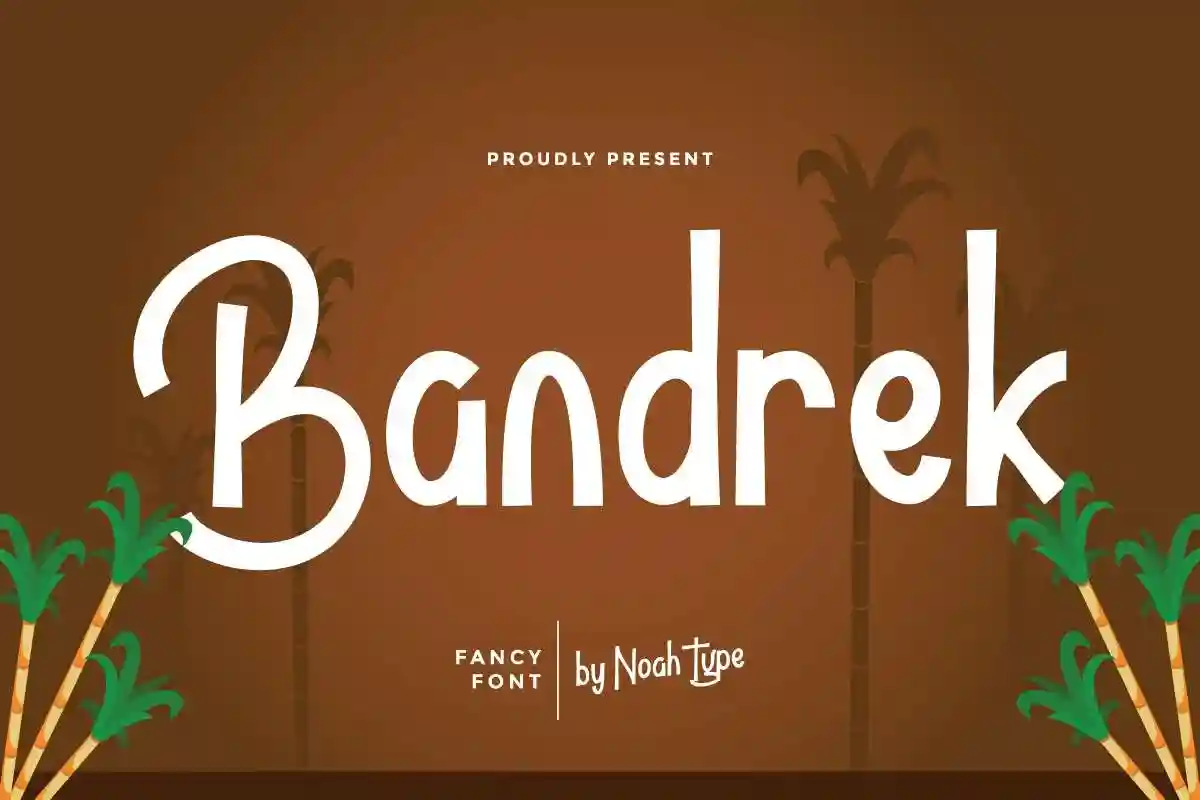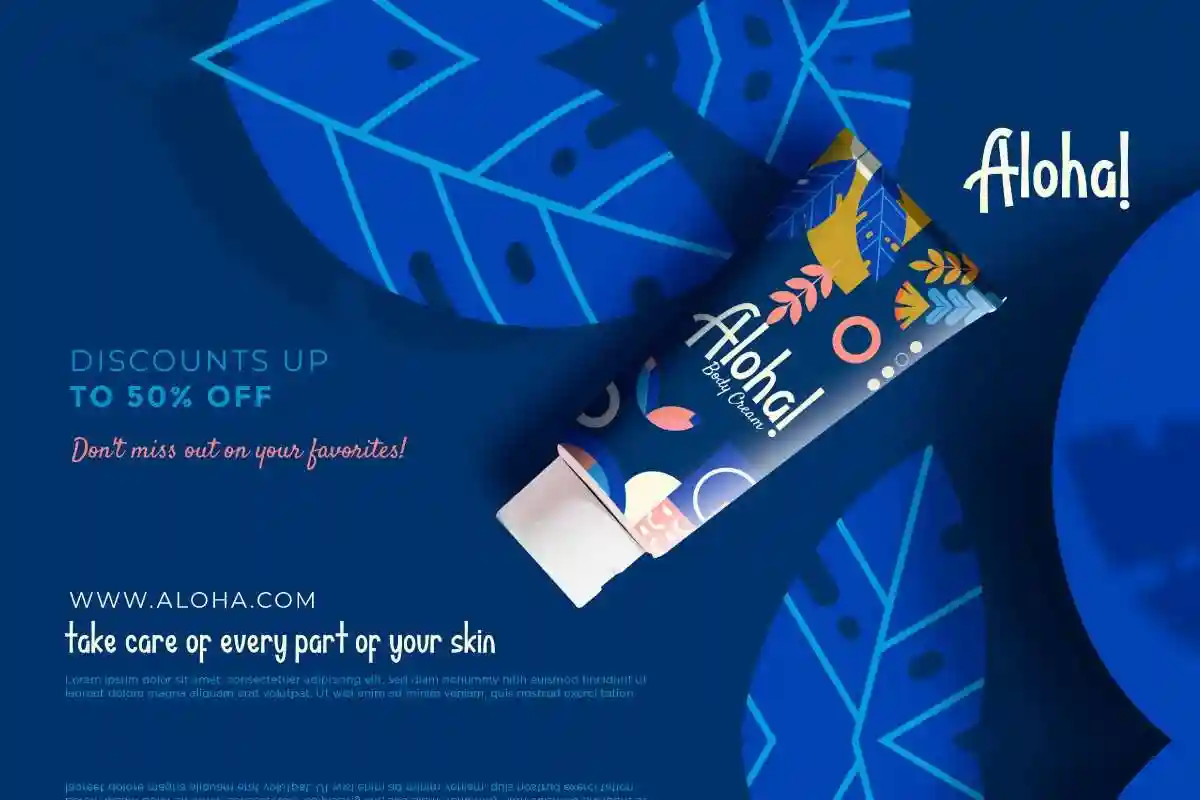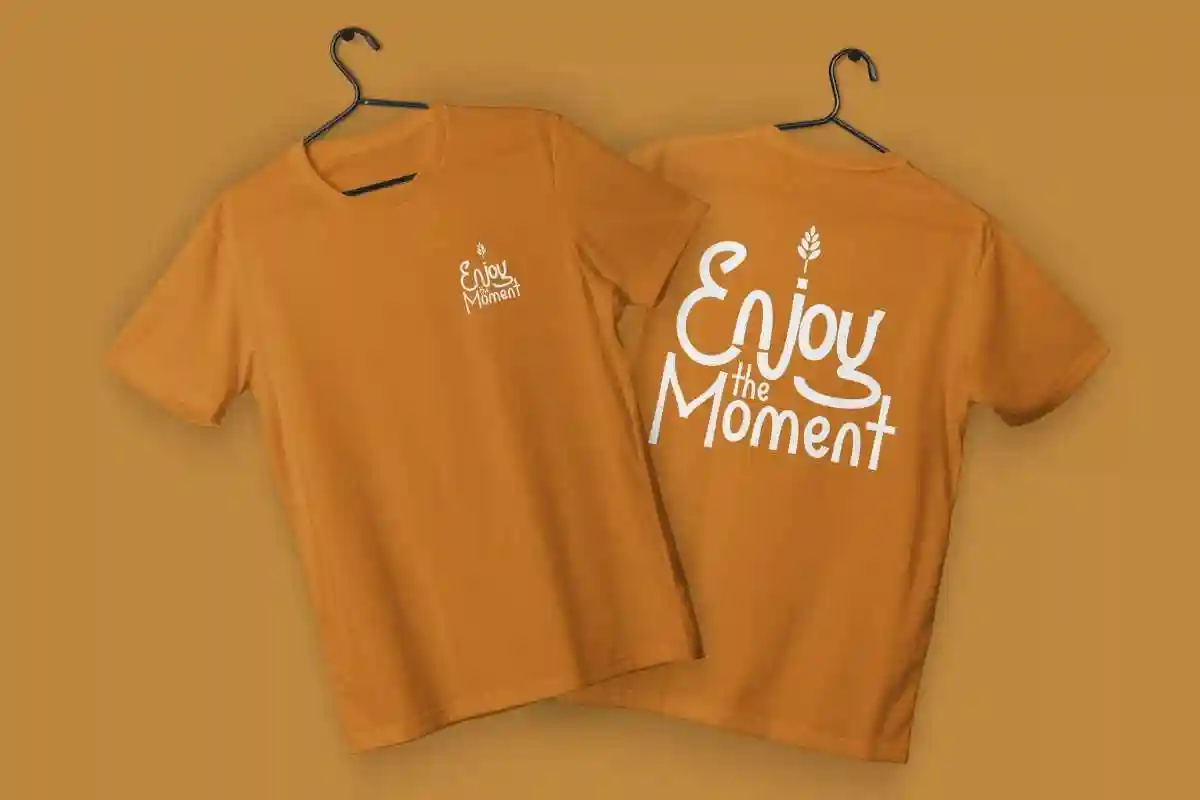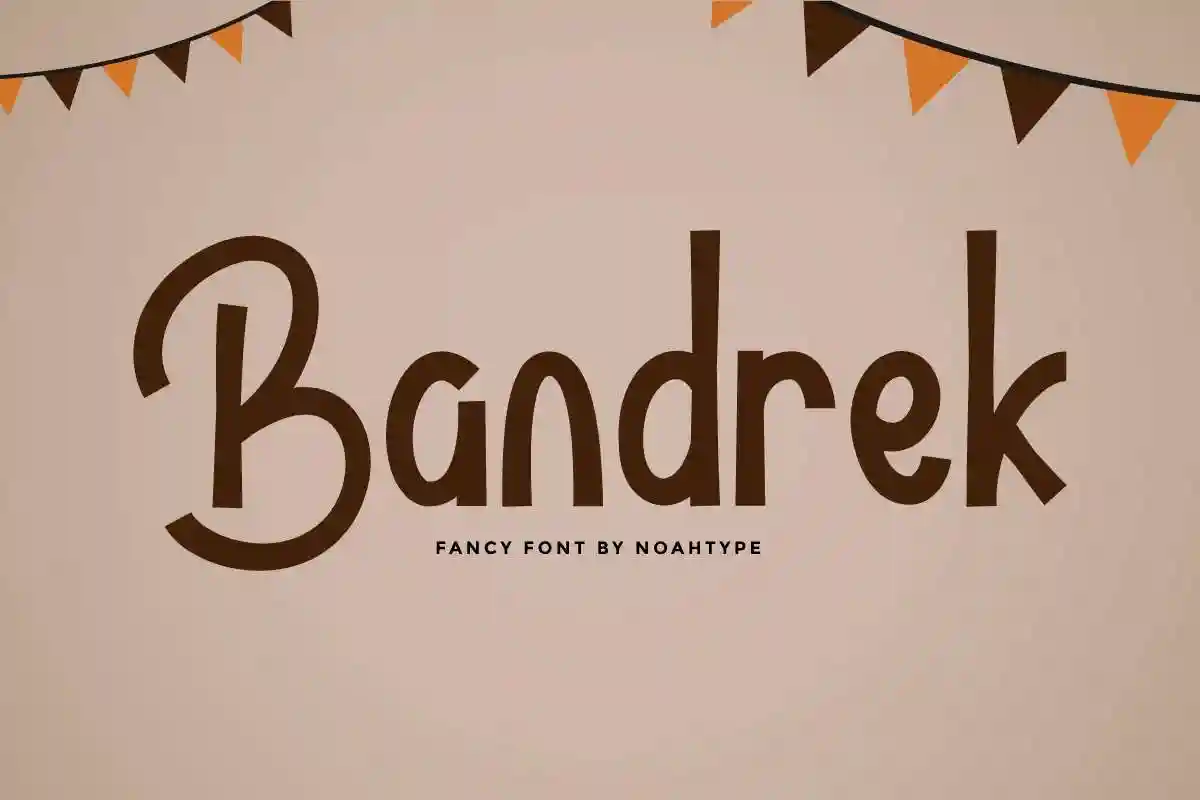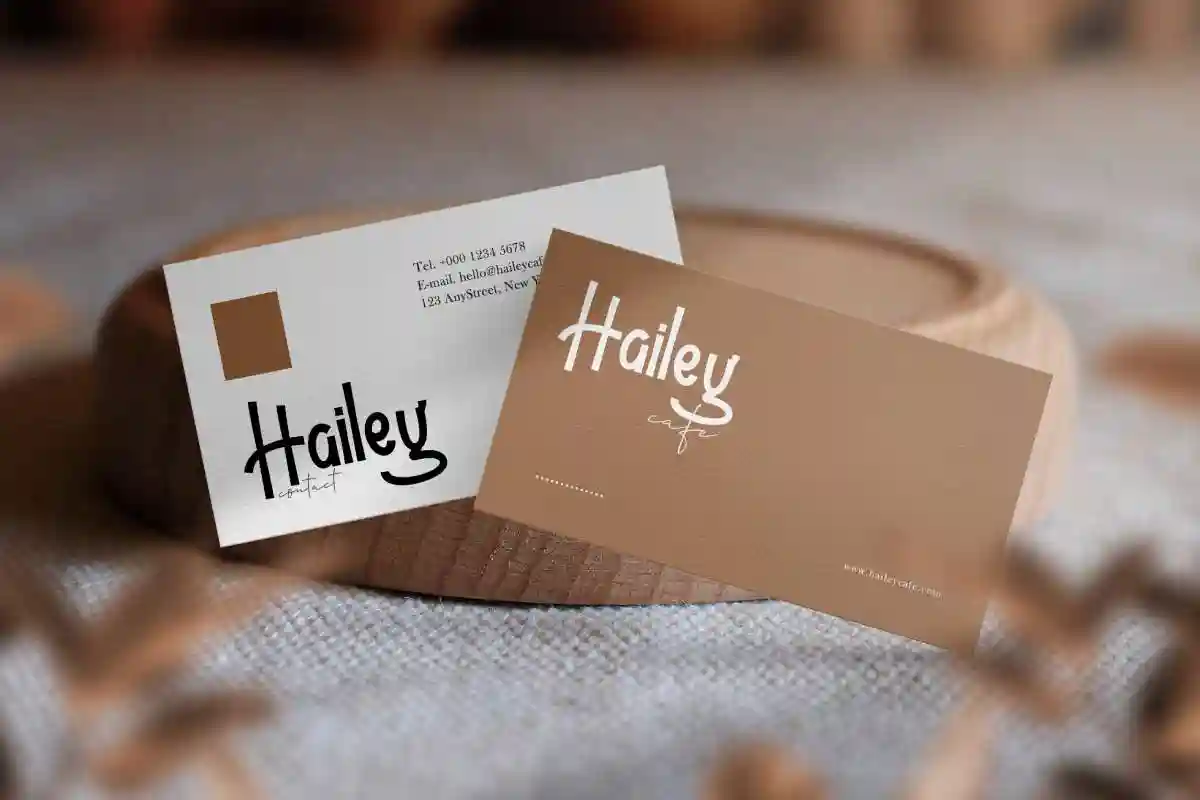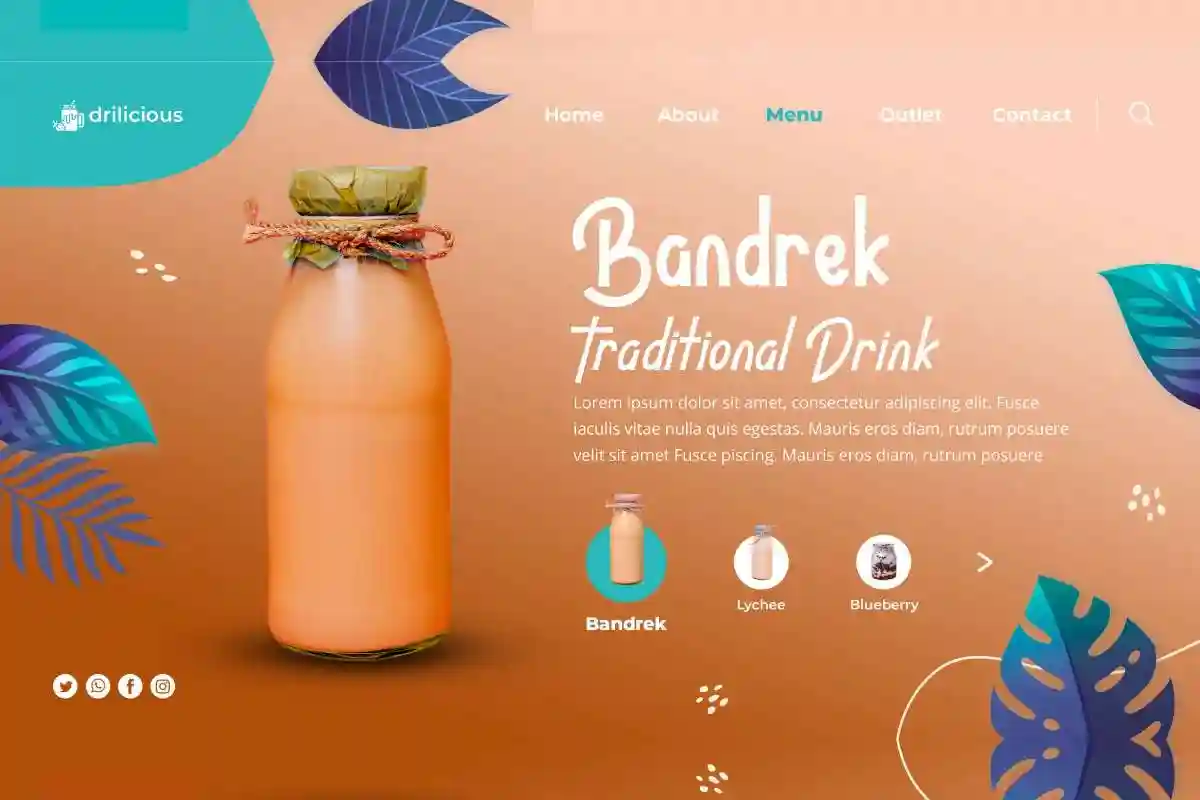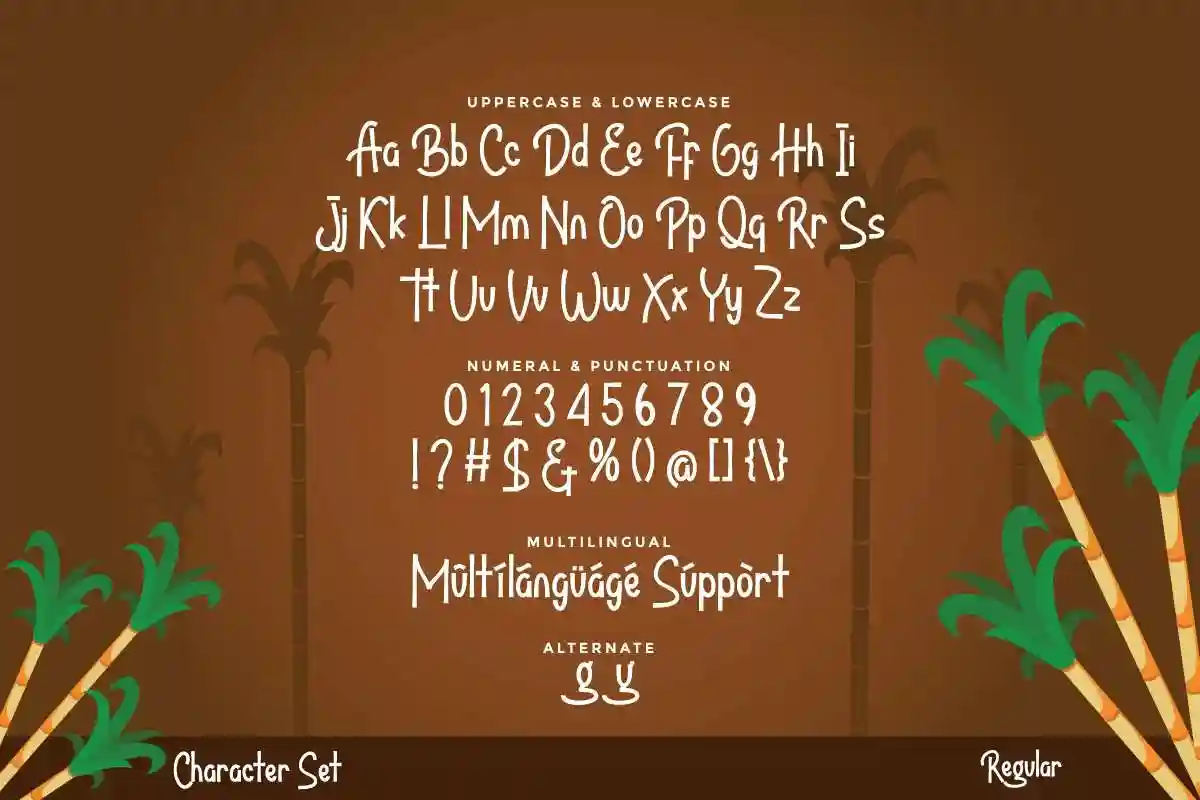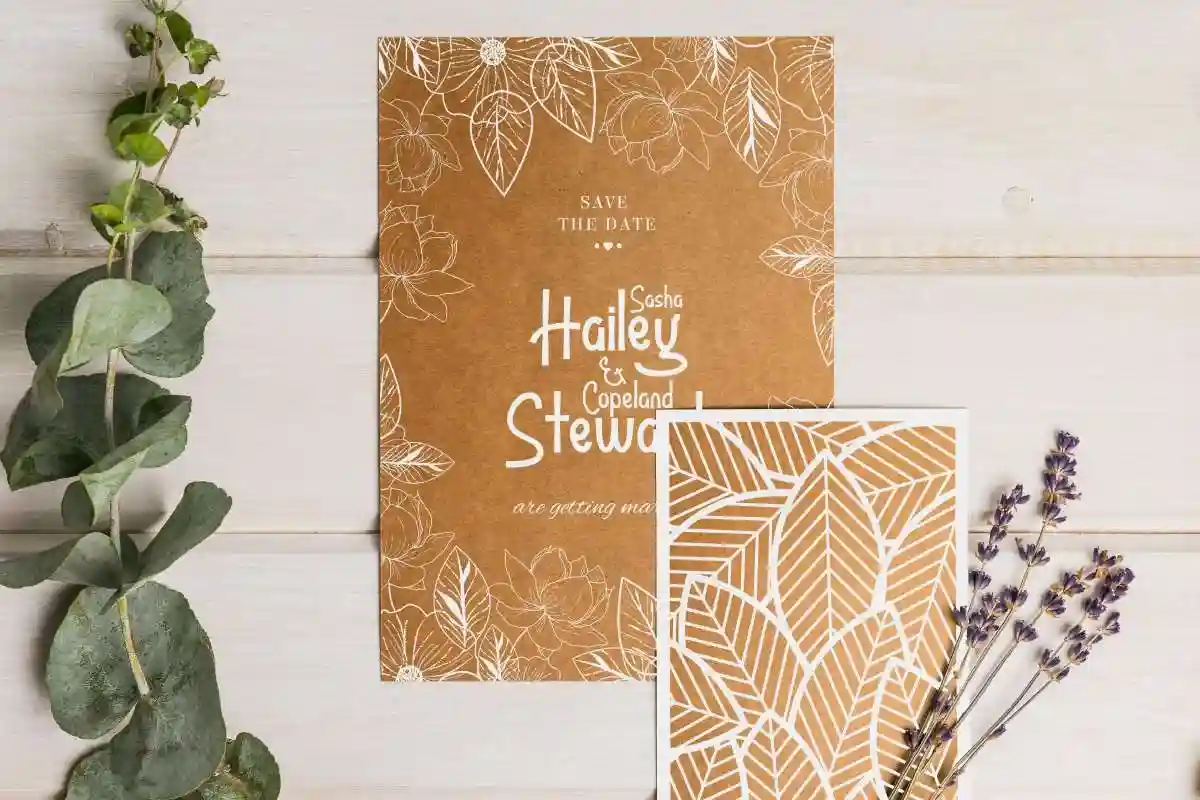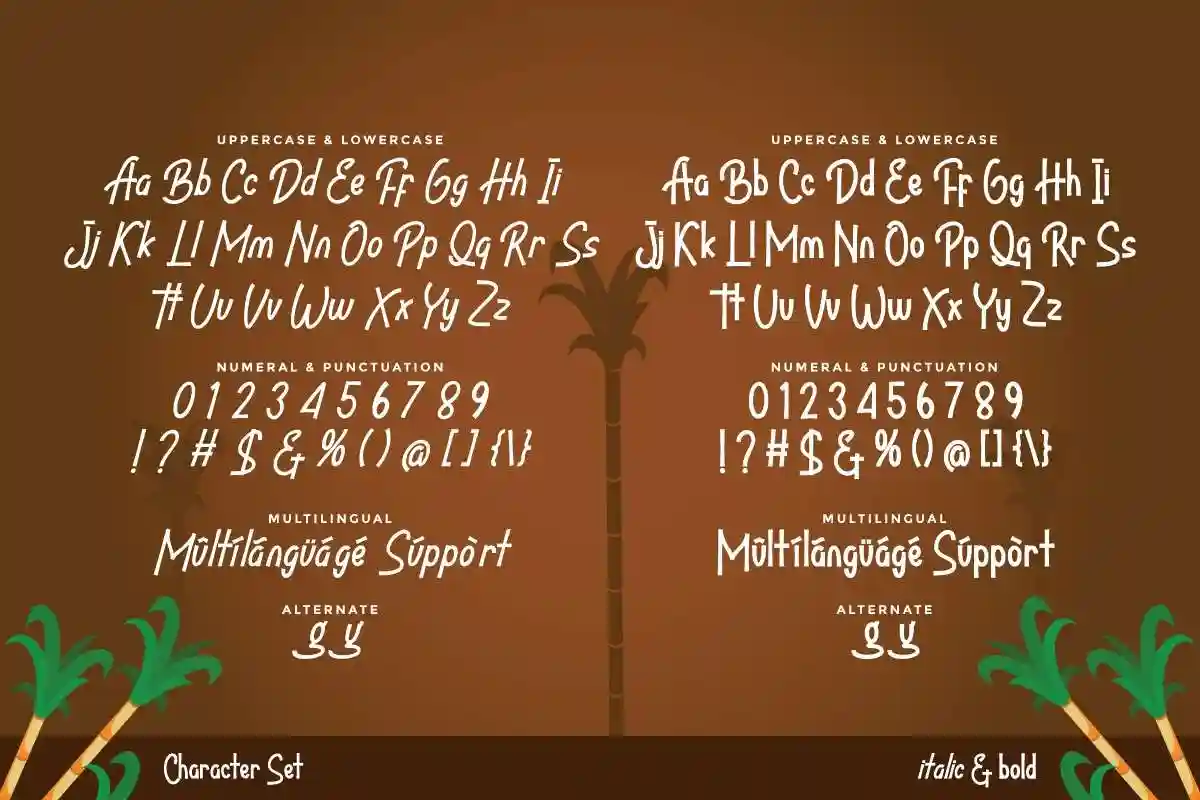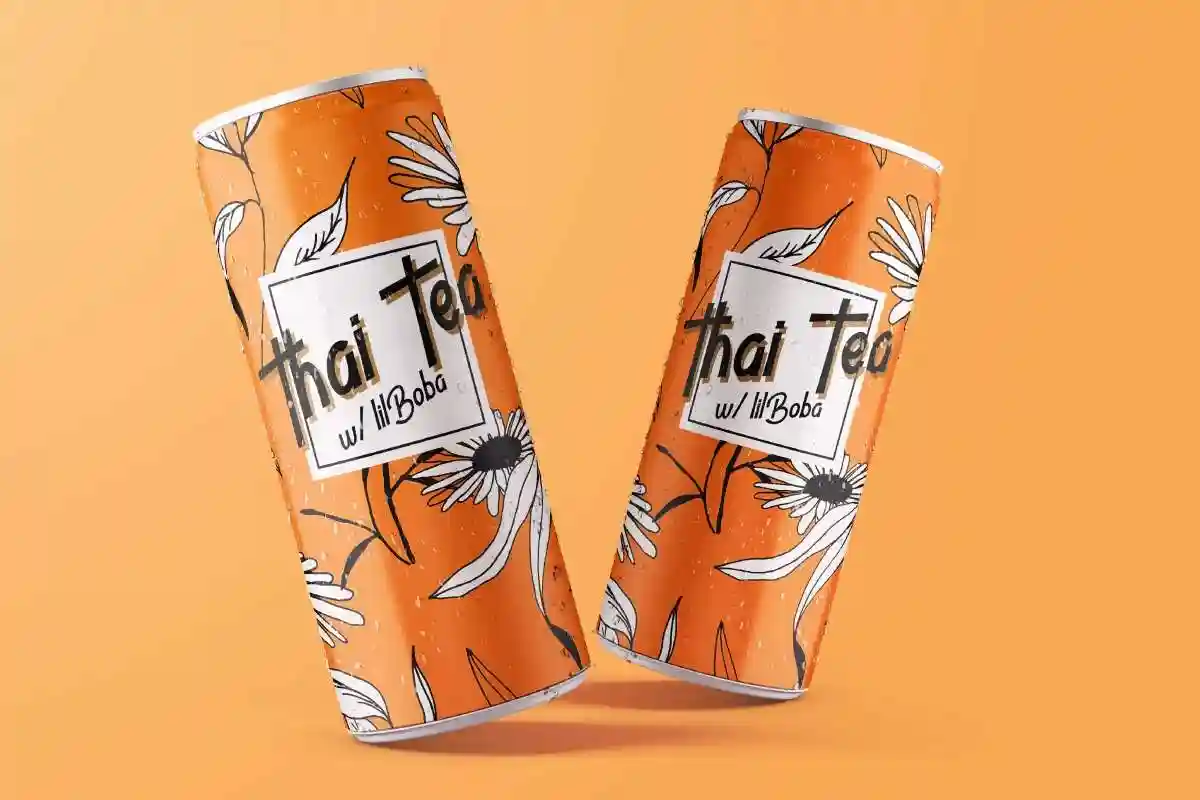
Bandrek Fun Handwriting Font
Bandrek Font is a fun handwriting font with simple comic inspired style. Bandrek Font comes with three different styles : Regular, Italic and Bold. This font is crafted carefully in every its single line, created to look as close to a natural handwritten script so that it can create the perfect combination on each glyph. When we make this font, we really want to create a touch that is so free-flowing that it gives a natural impression on its use later. This awesome script is for anyone who are needing of fun and stylish designs.
Bandrek Font includes full set of Uppercase and Lowercase Basic Characters, Numerals and Punctuation. Also it contains ligatures and alternates characters to perfectly make natural handwriting look that add more beautiful and aesthetic fonts to perfect your extraordinary project. Bandrek Handwriting Font will be awesome for invitations, events, movie, music, children book, school, kids products, social media etc
Bandrek Font will be great for branding, logotype, social media post, poster, invitation, watermark, lettering and many more